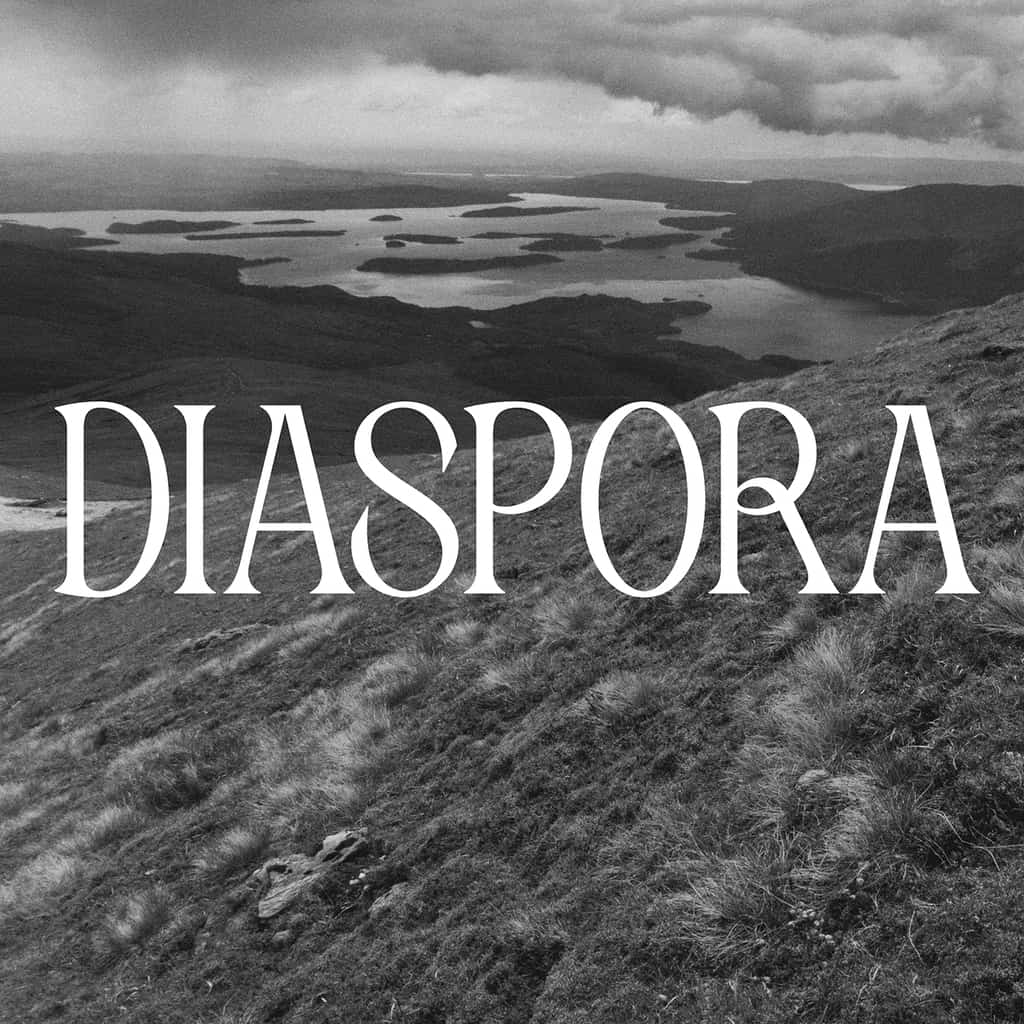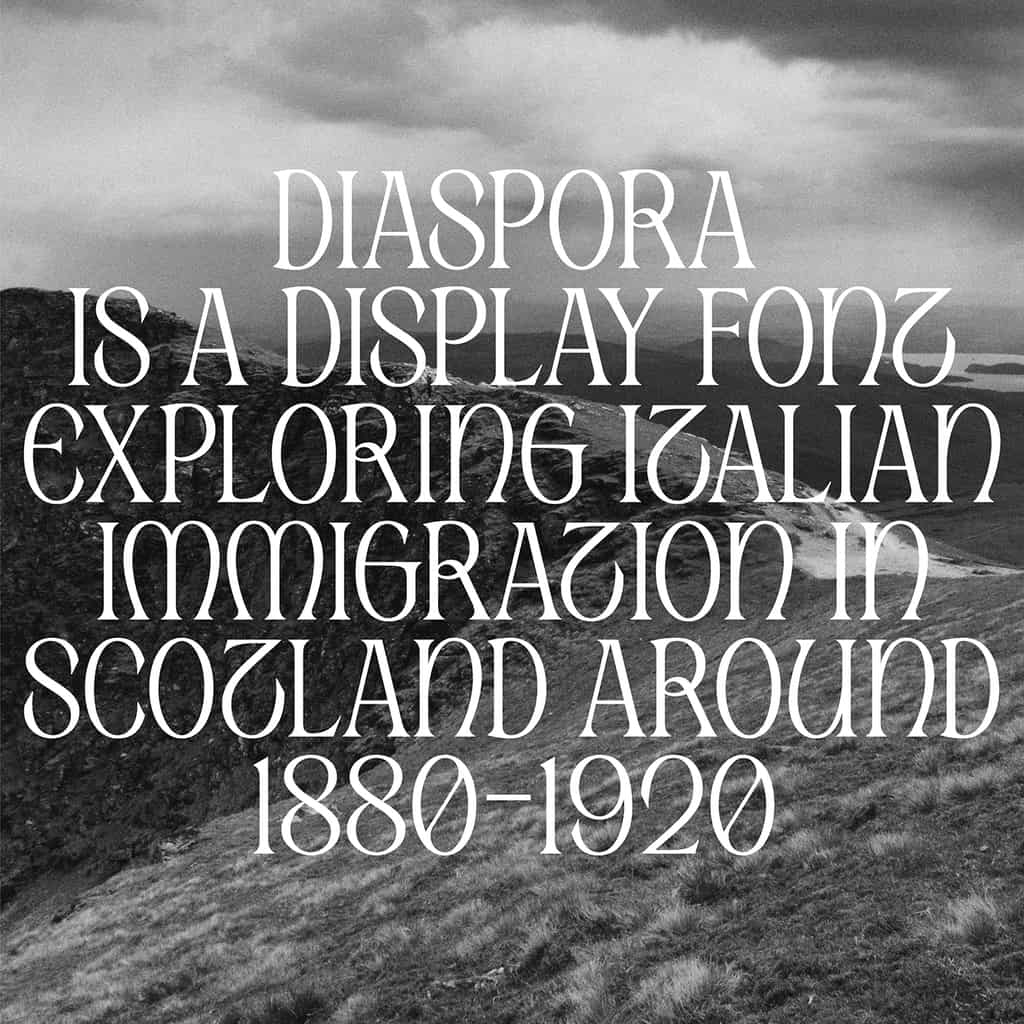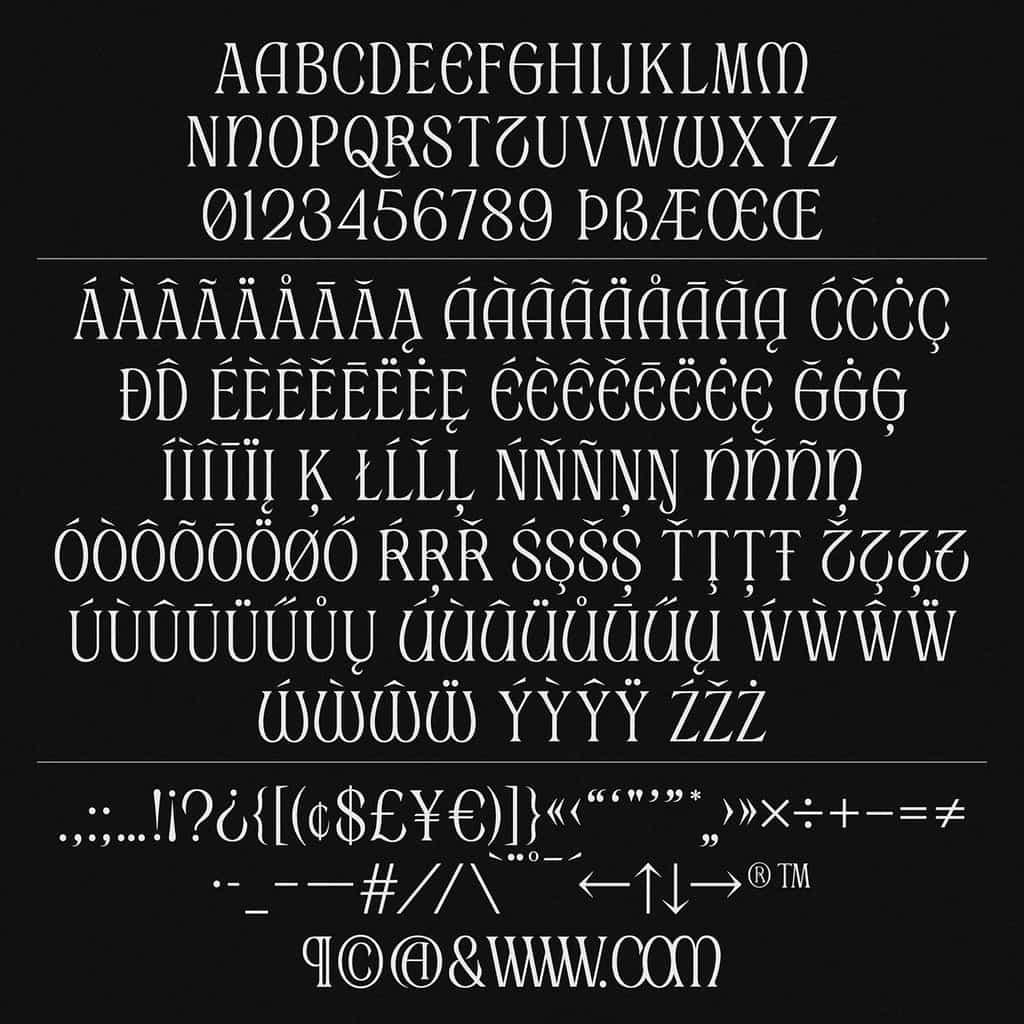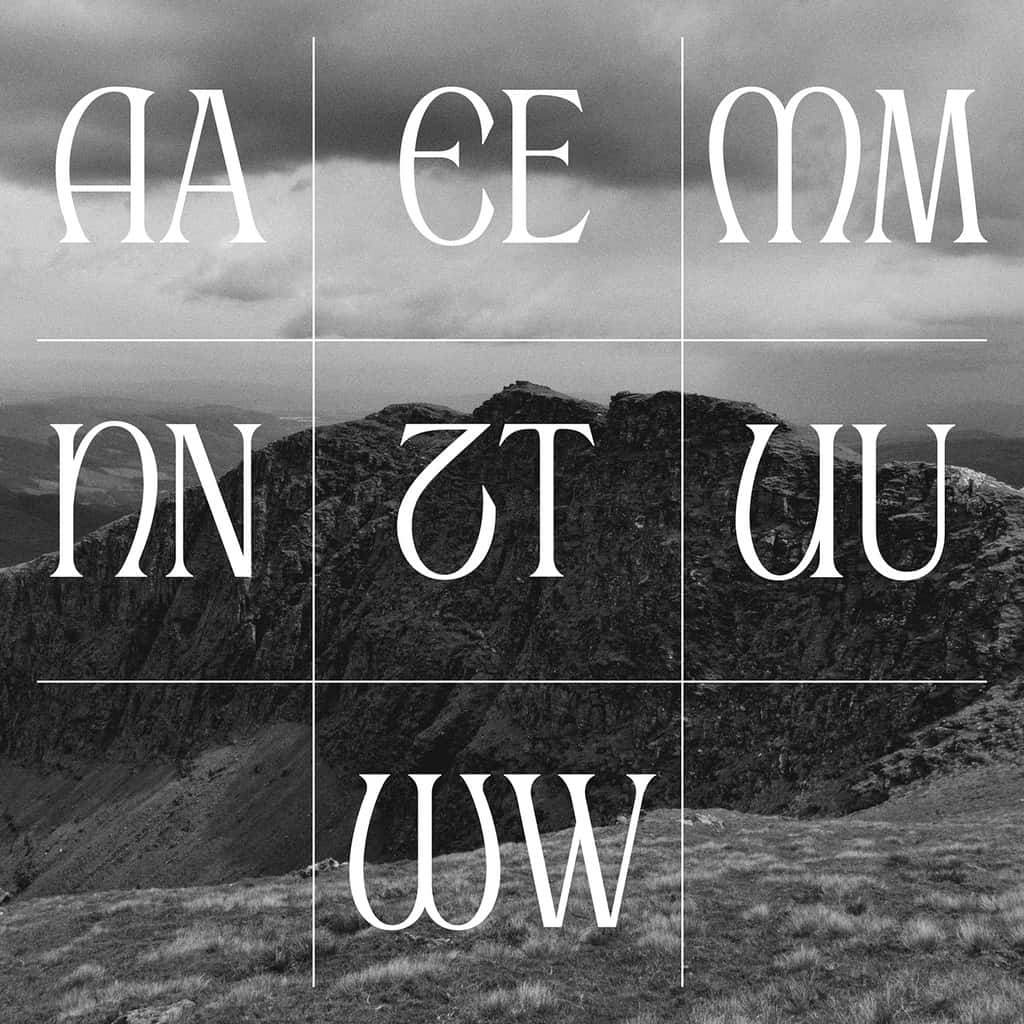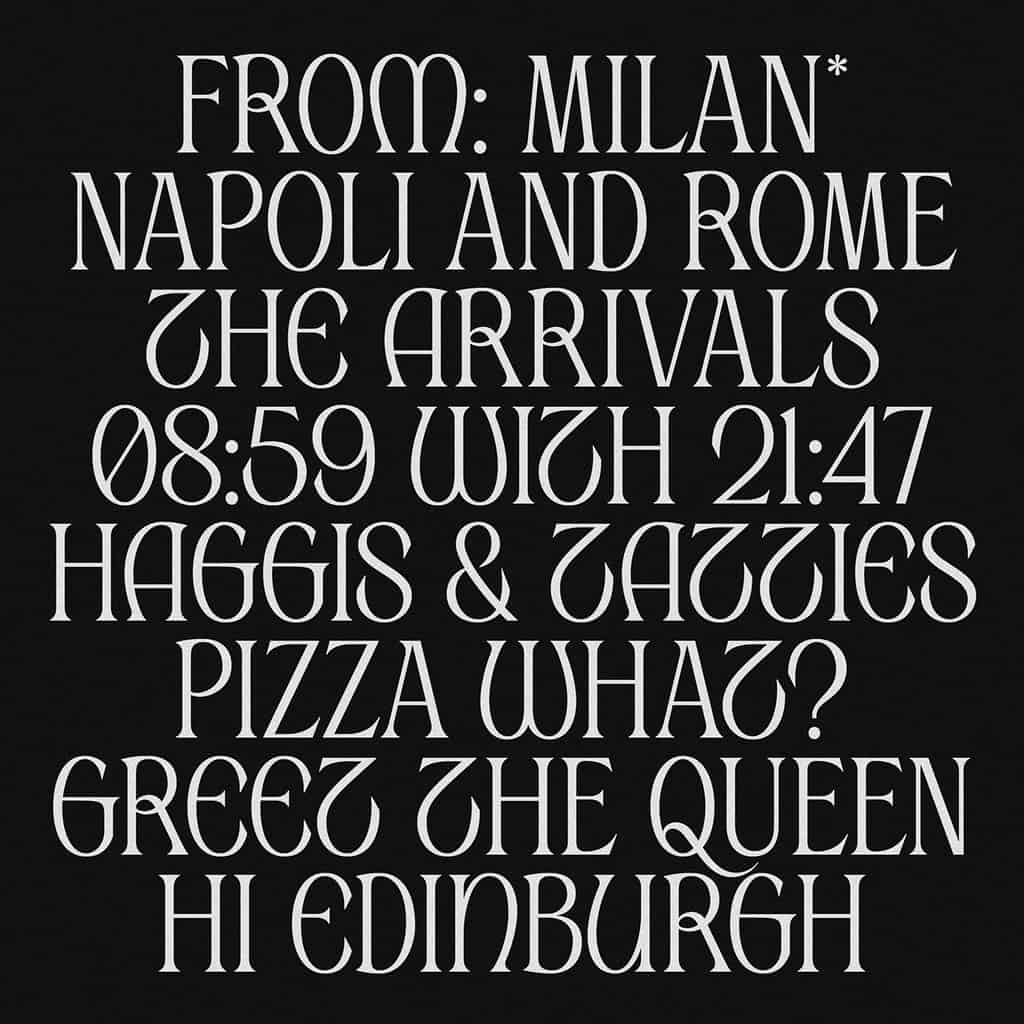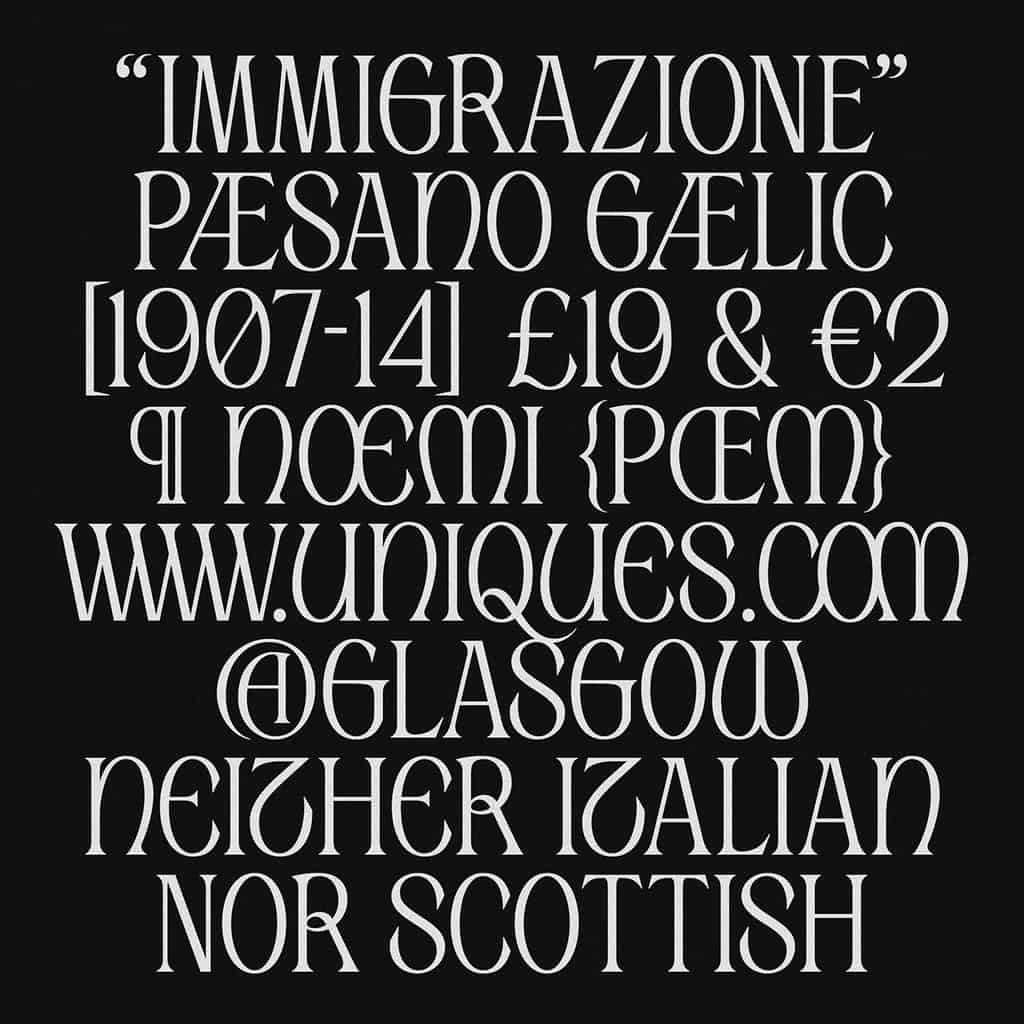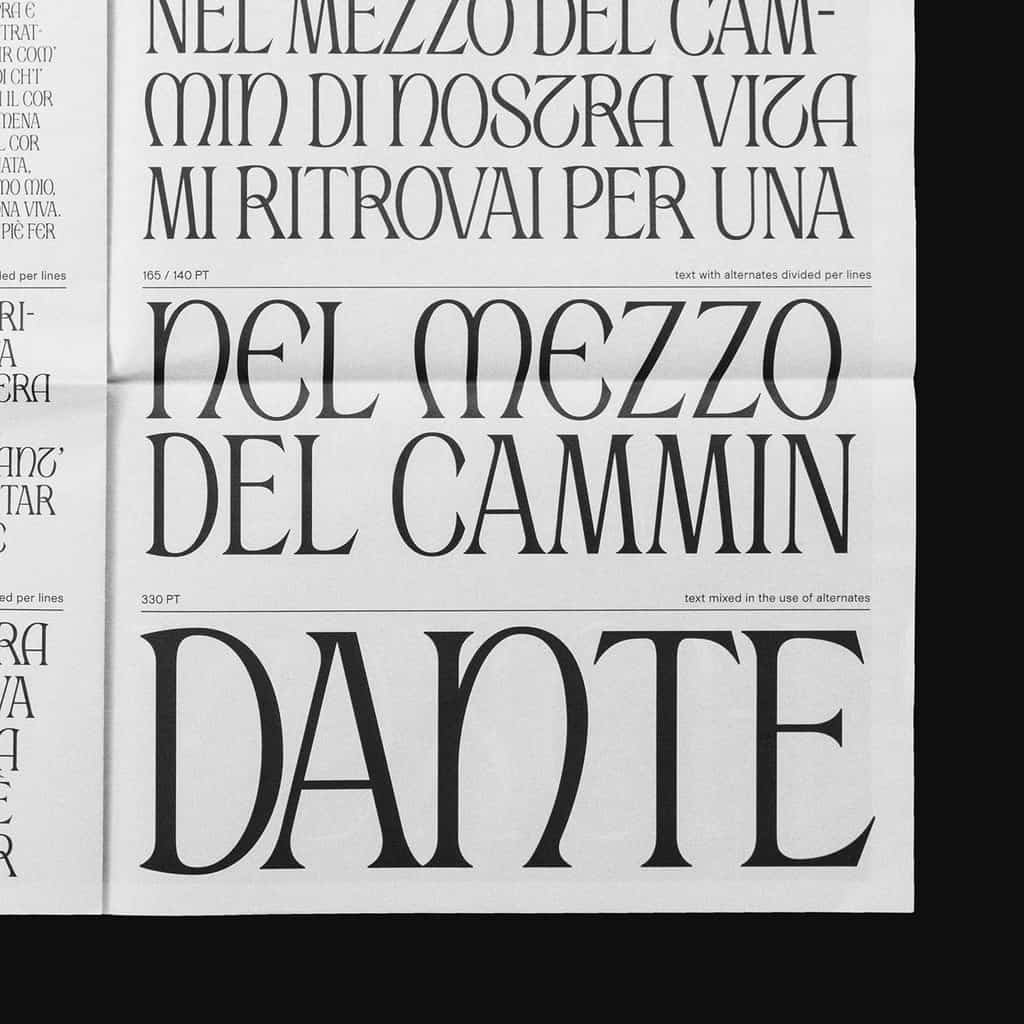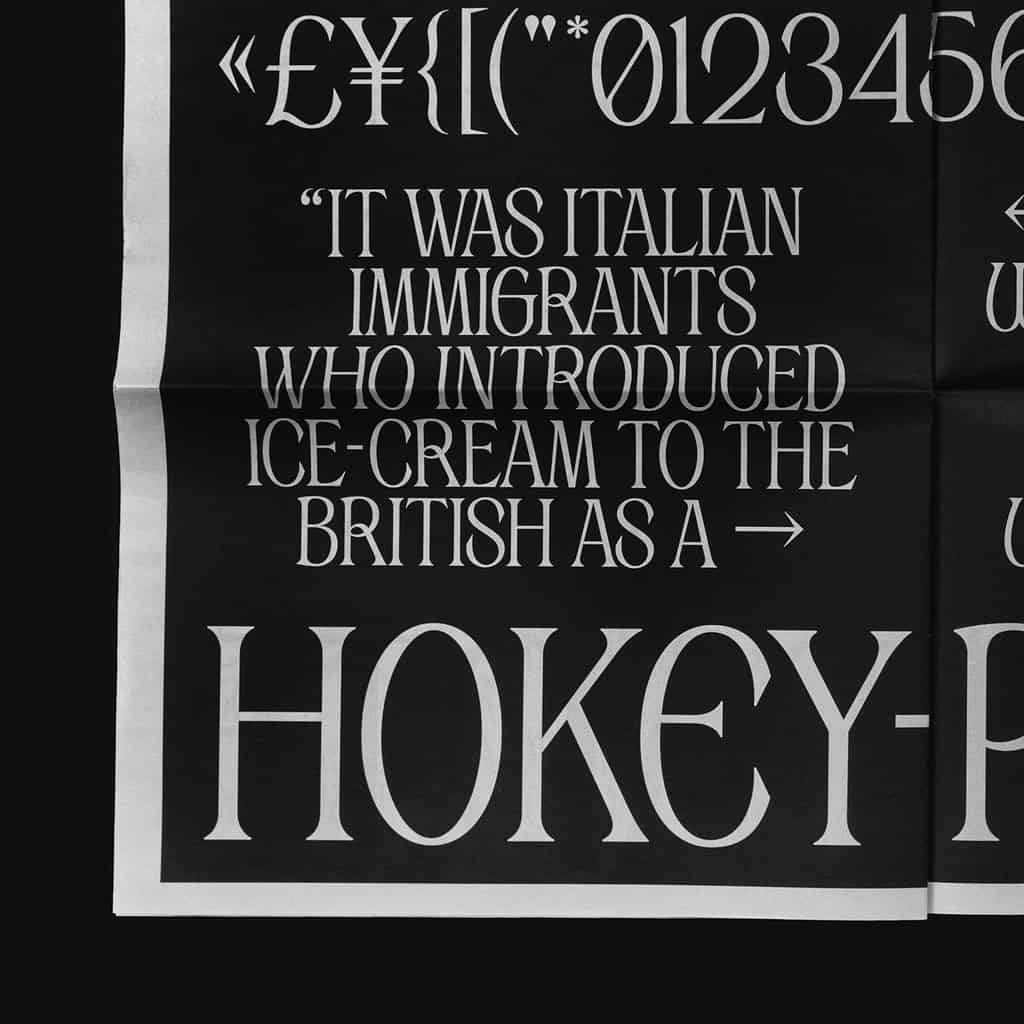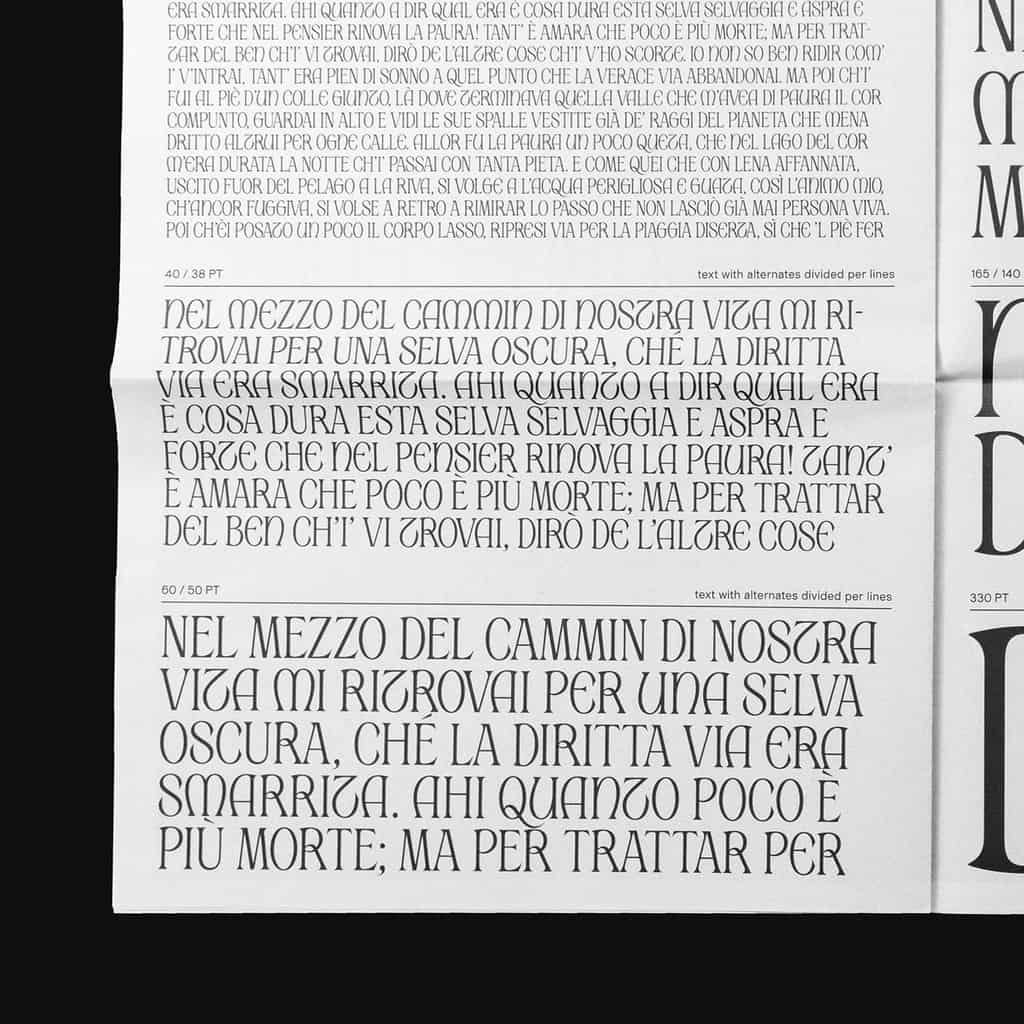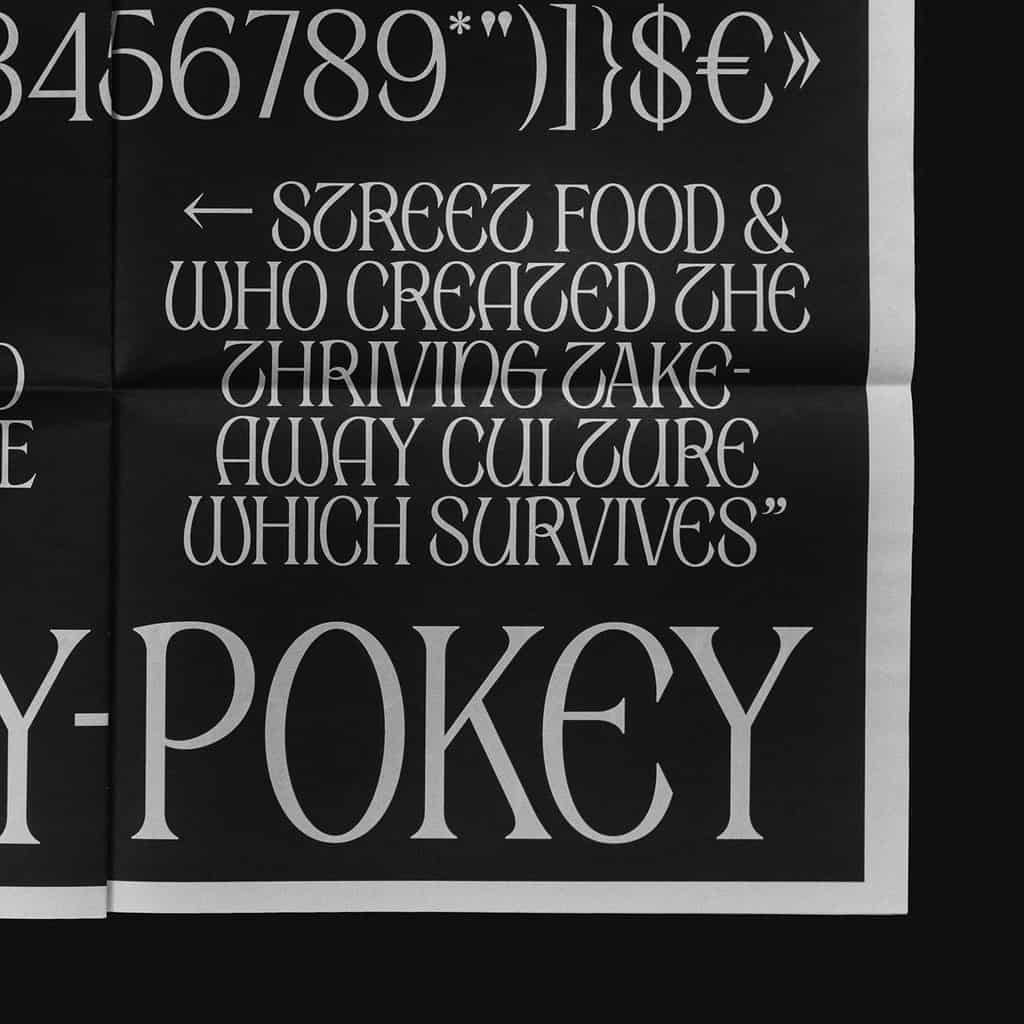
Diaspora Regular
Good Eggs Type Foundry
Diaspora is a distinctive display font that pays homage to the Italian immigration to Scotland between 1880 and 1920. This font uniquely captures the hybrid identities of the Scots-Italian diaspora by offering seven alternate glyphs for letters A, E, M, N, T, U, V, and W. These alternates empower users to craft their own typographic identity.
Designed on a cohesive basic structure, Diaspora maintains individual quirks across its letters, ensuring a harmonious yet diverse set. The font enables users to create text styles that evoke either a distinctly Roman, or a Gaelic aesthetic, or blend elements from both cultures into a seamless hybrid.
- Stylistic set 1: 7 alternates A, E, M, N, T, U, W